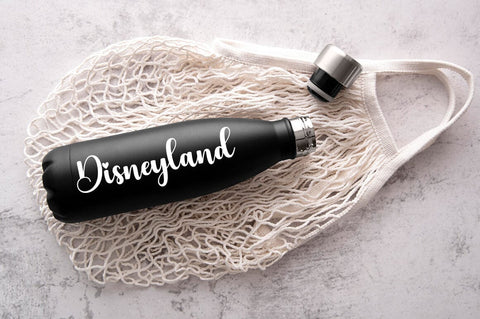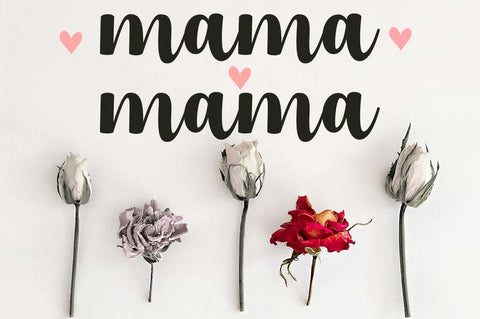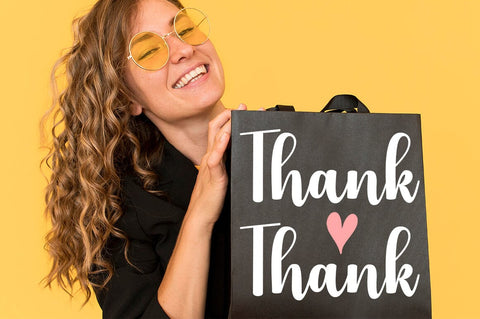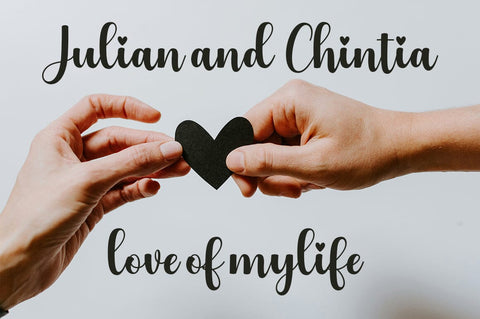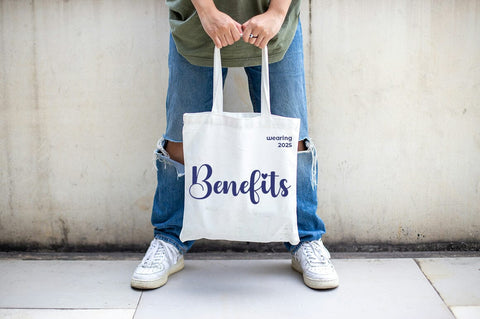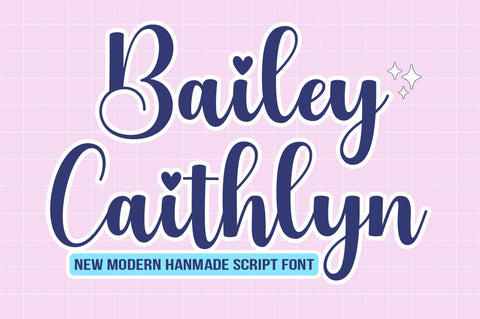
Bailey Caithlyn
Introducing Bailey Caithlyn Script, a stunning example of contemporary calligraphy at its finest. With its easy-going style imbued with artistic swashes, this font effortlessly encapsulates beauty that speaks volumes. It's more than just letters and characters; it's a versatile tool that breathes life into a myriad of applications. From gracing wedding invitations with an air of romantic sophistication to adding a memorable charm to logos and product packaging, this font endlessly surprises you. It infuses branding endeavors with personality, gives headlines their much-needed flair, and turns an ordinary sign into a piece of art. For book covers seeking an edge, labels wanting a touch of elegance, or posters longing for a dose of creativity, Bailey Caithlyn Script answers the call. Allow this font to put forth powerful quotes, create immersive stories and signature styles that linger in memories. Discover the limitless possibilities with Bailey Caithlyn Script.